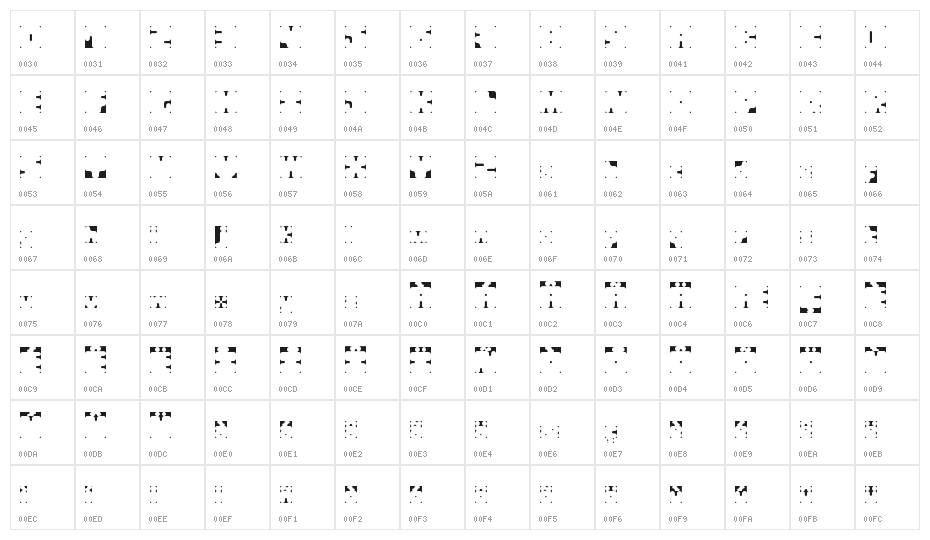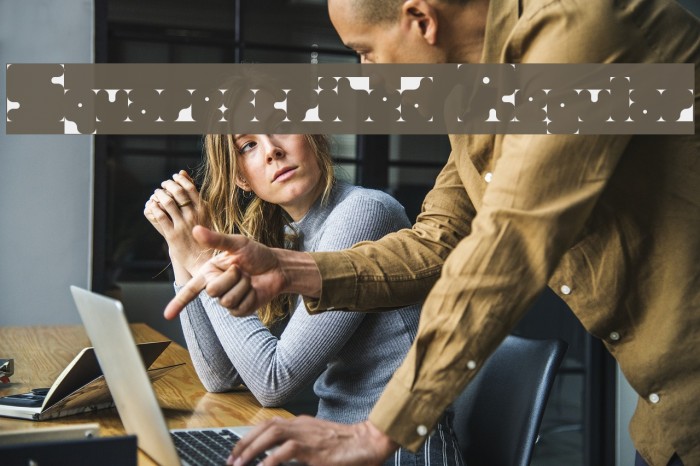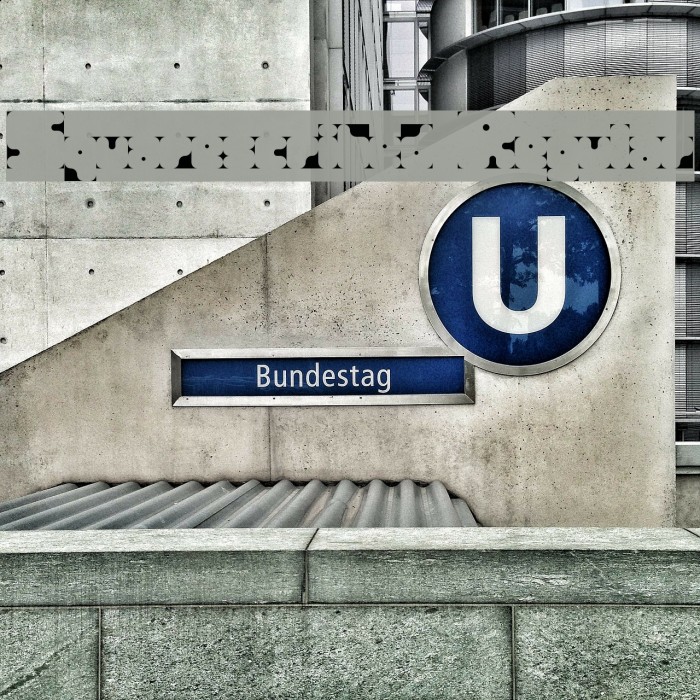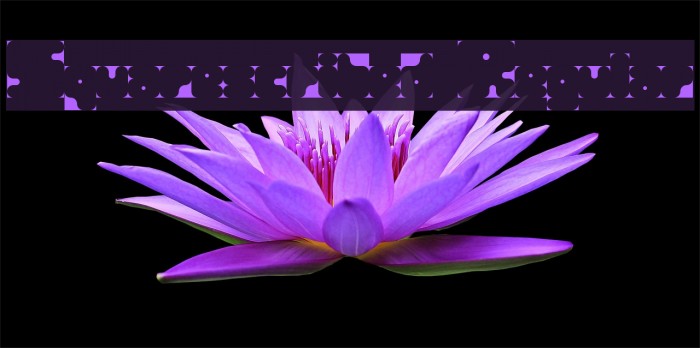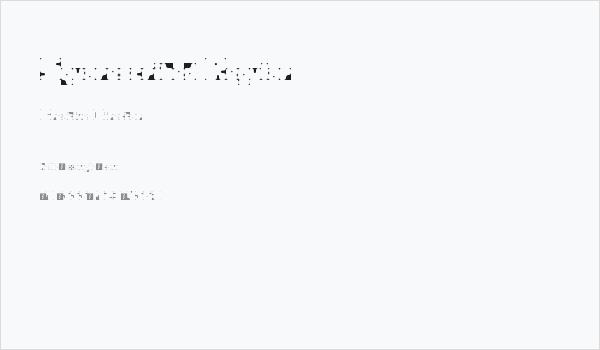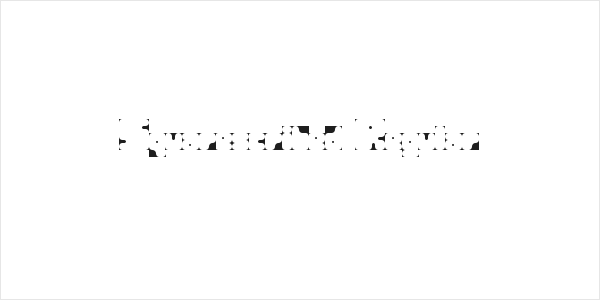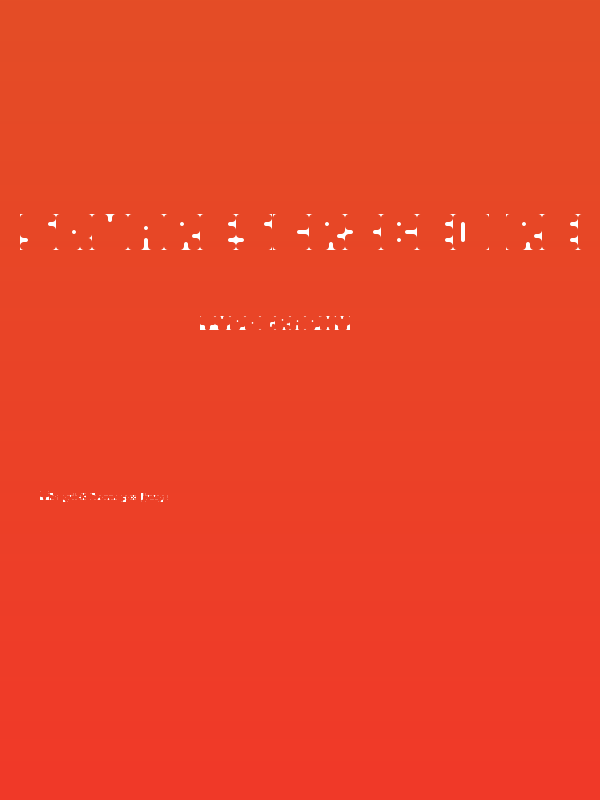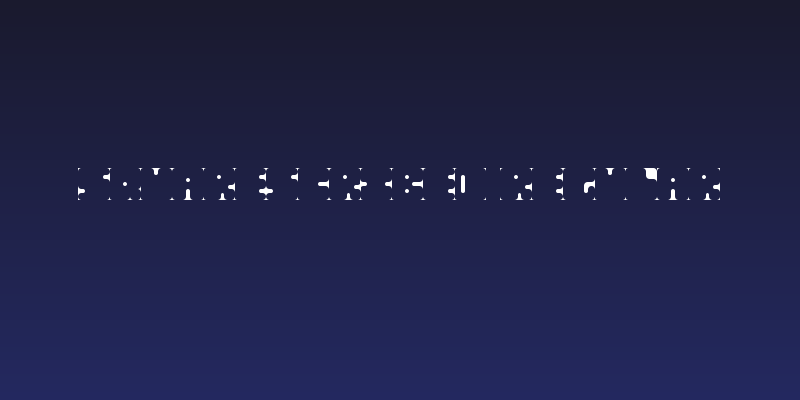
Squarescribed Regular Font
Squarescribed Regular Description
This font features a unique and decorative style with a square, grid-like pattern that creates a visually intriguing effect. Each character is composed of a series of interconnected squares, giving it a pixelated appearance. The design is consistent across all characters, maintaining a uniform look that is both modern and artistic. The font's geometric structure makes it stand out, offering a bold statement in any design project. Its distinct style is suitable for creative and experimental uses, where a touch of modernity and uniqueness is desired.
MrtheNoronha - Daniel Noronha
| Proposed Projects | Ideal for digital art projects, modern posters, creative branding, and experimental design work. |